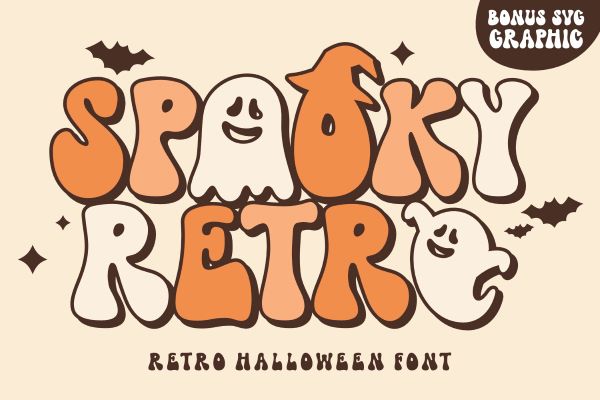
Spooky Retro Font
Spooky Retro by keithzo is a Halloween and freaky font that earns its name through a deliberately considered blend of two distinct aesthetic registers — vintage nostalgia and seasonal horror. Rather than leaning entirely into either the retro or the spooky, it finds the productive tension between them: letterforms that carry the warmth and visual rhythm of classic vintage display type while simultaneously projecting an eerie, unsettling atmosphere that belongs entirely to October. The result is a typeface that feels equally at home on a vintage-themed Halloween party invitation, a retro spooky packaging design, or a chilling poster. Free for personal use.